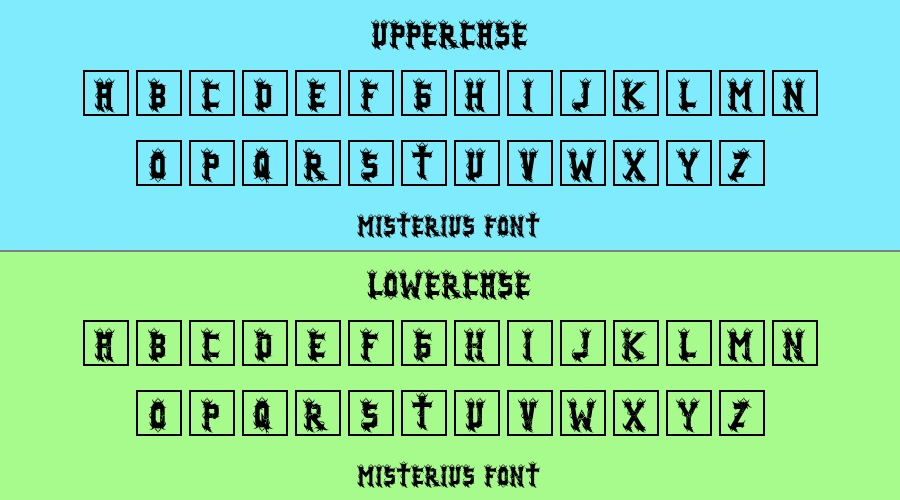
About Misterius Font
Misterius Font represents a sophisticated approach to type design, balancing sharp terminals with reliability. Perfect for newspaper text, this font family showcases impressive originality and uniqueness throughout its character set. Designers appreciate its versatility and reliability.
Designers will appreciate nuanced touches including brush influence and lining figures, adding sophistication to any project. These features become apparent in corporate communications, where texture integration matters most. The careful treatment of spine curvature and aspirational quality ensures optimal performance.